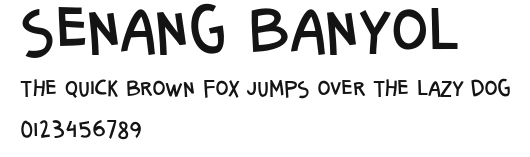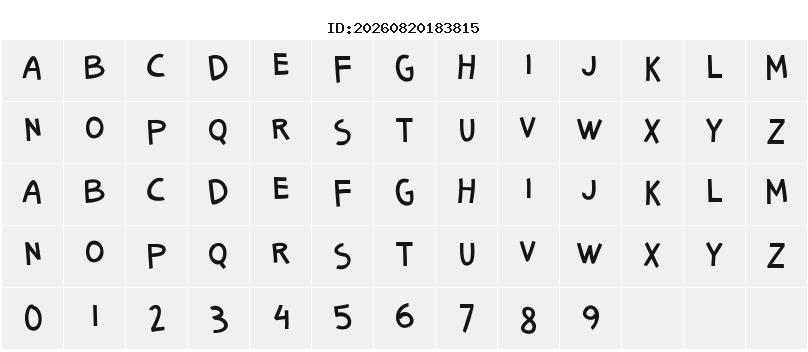
• Font Name: Senang Banyol
• Full Font Name: Senang Banyol
About Senang Banyol.ttf
Senang Banyol.ttf is a modern, elegant sans-serif font designed for ultimate readability and visual harmony. Perfect for branding, headlines, web design, and print materials.